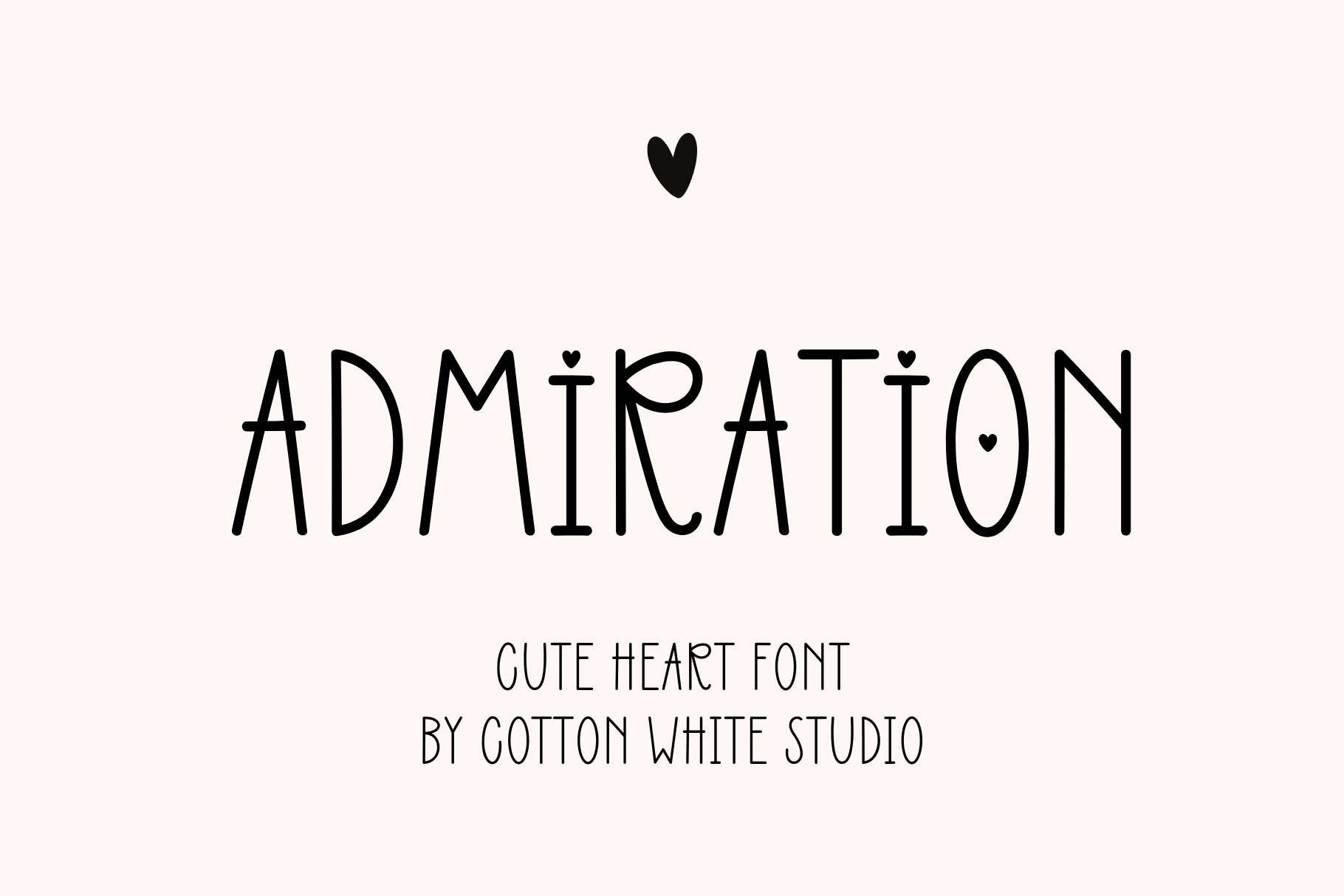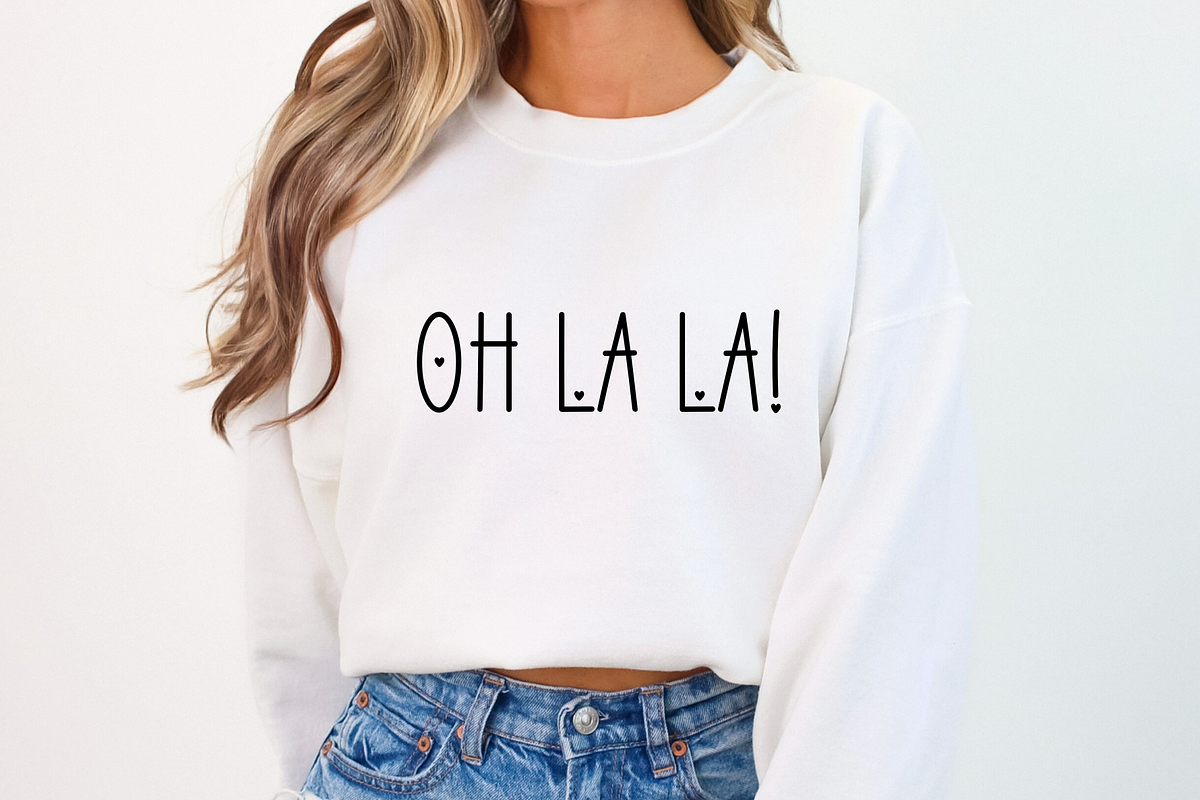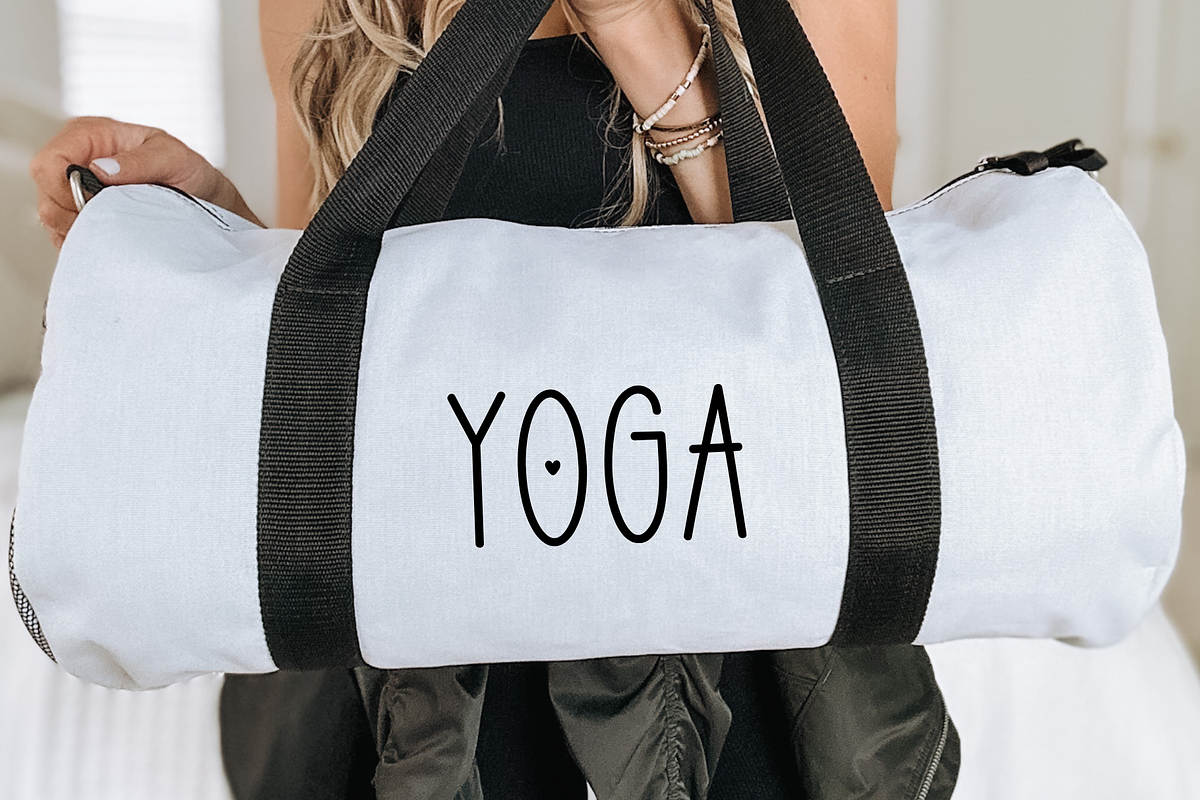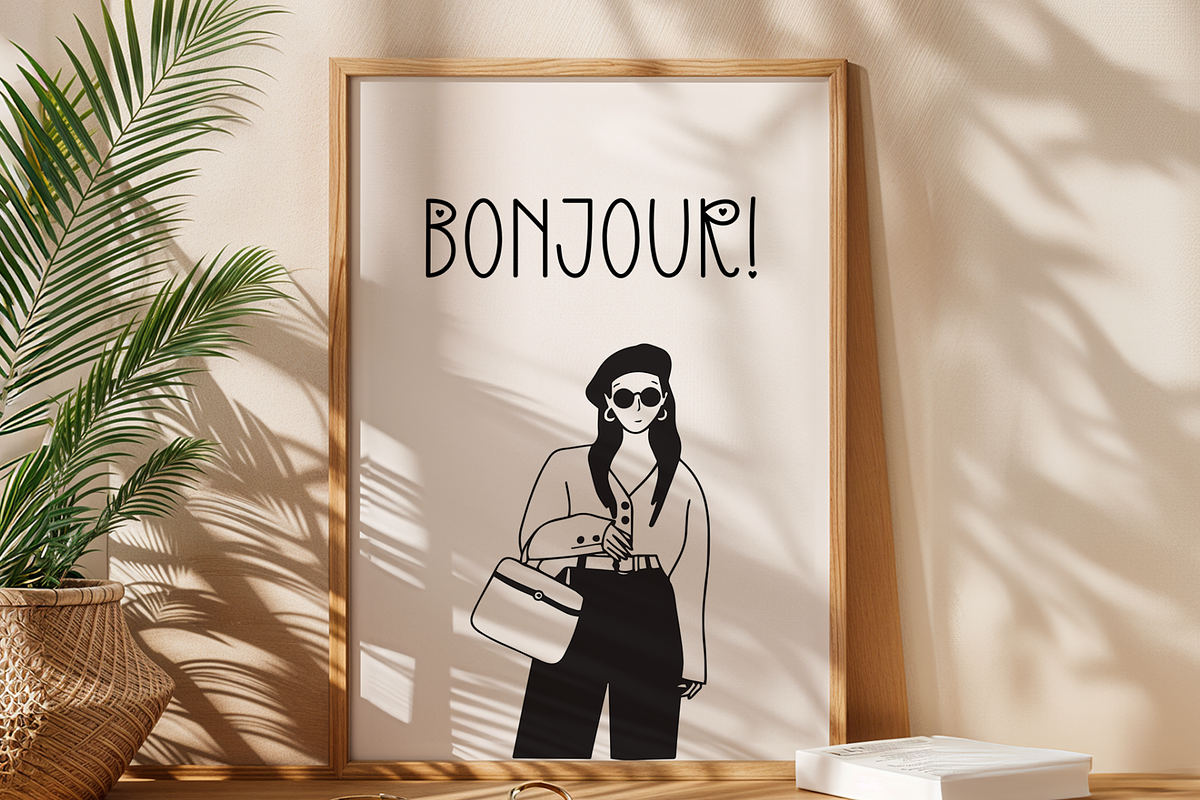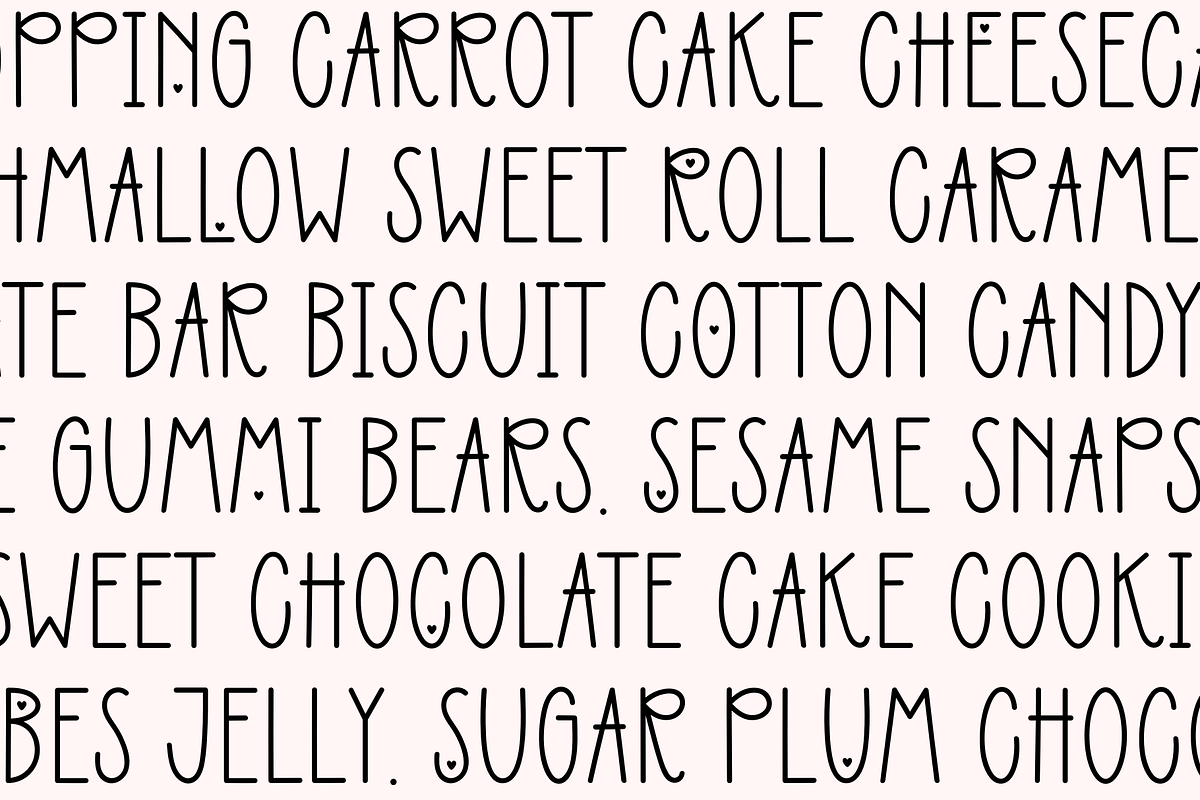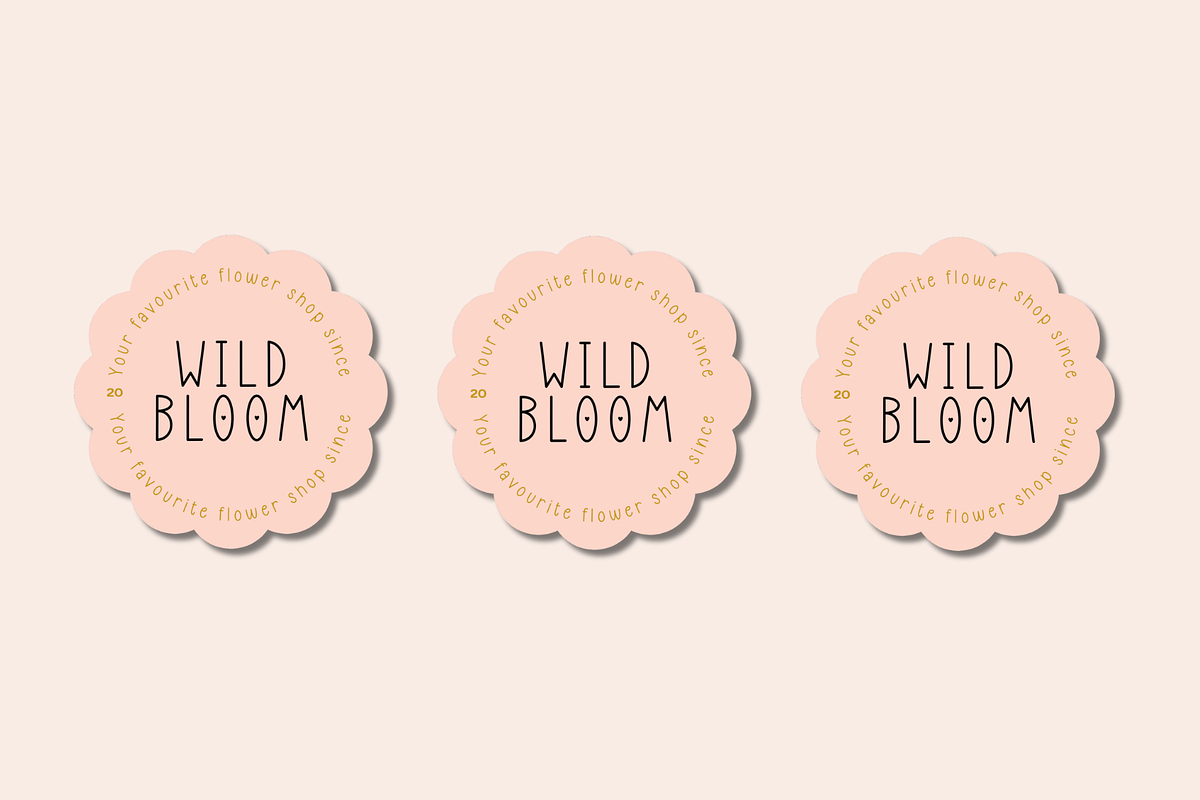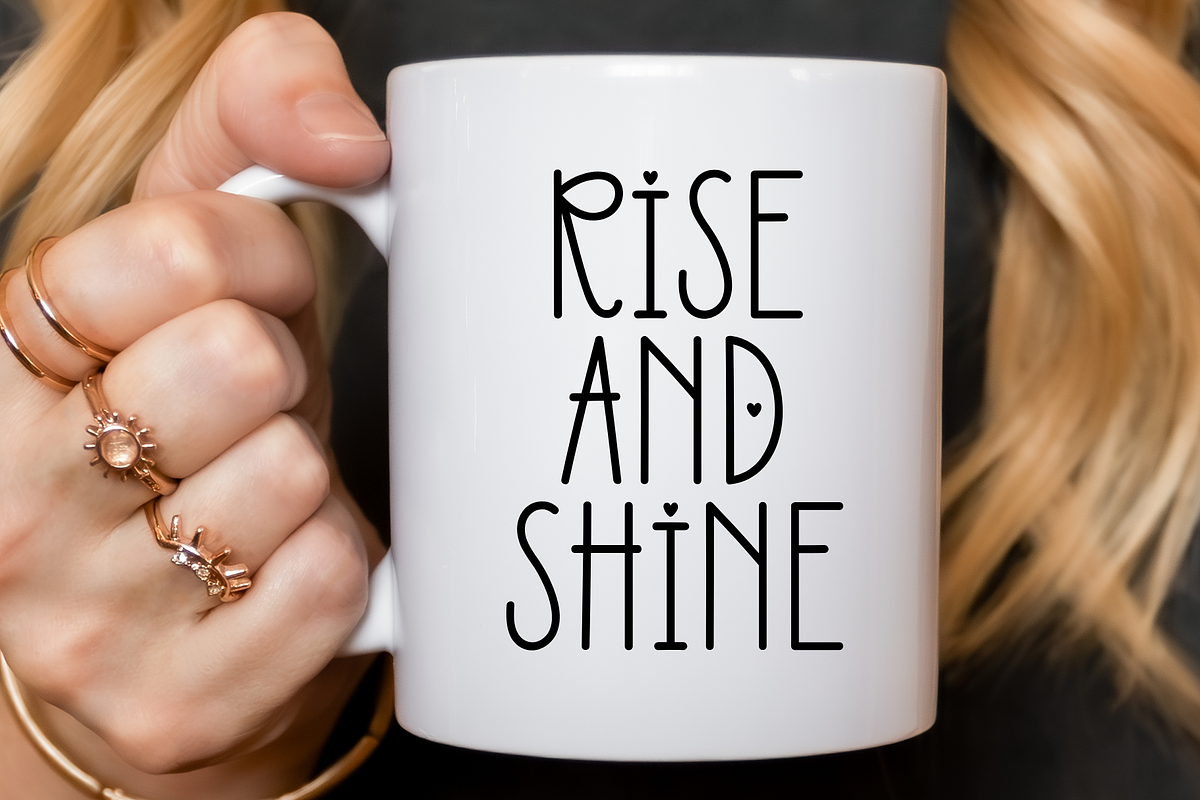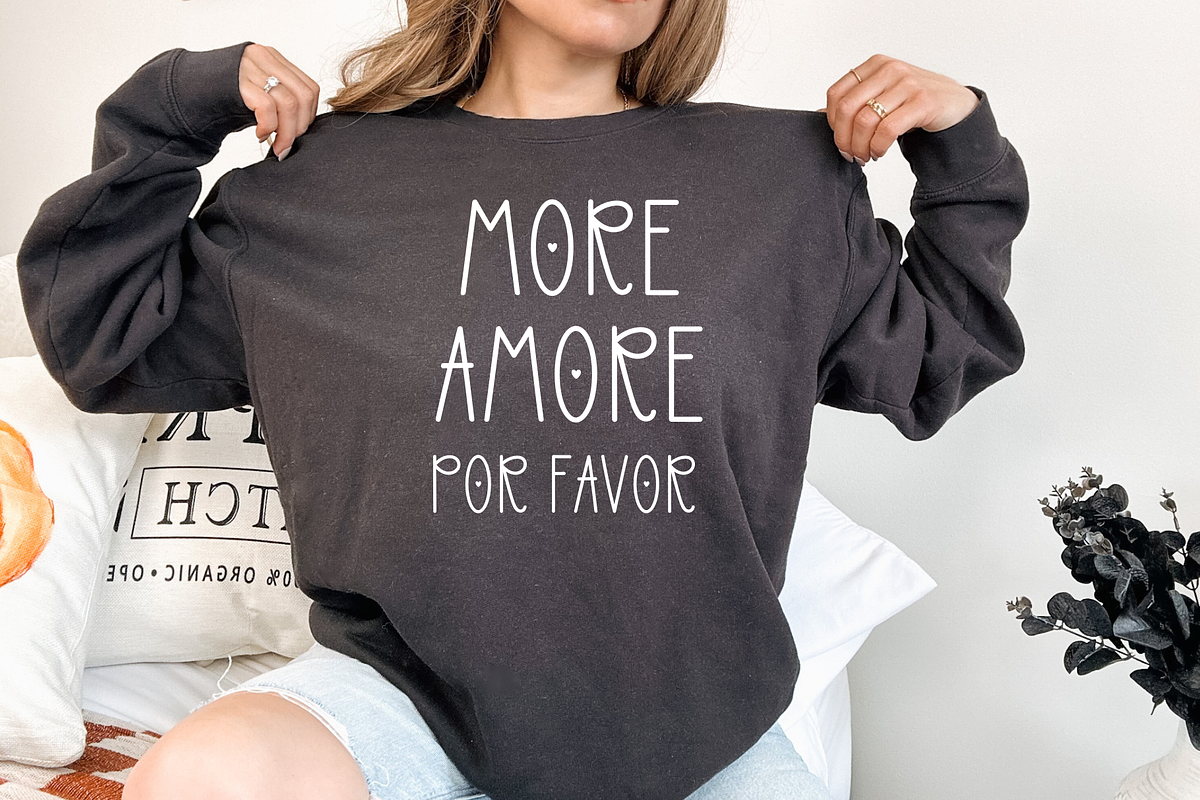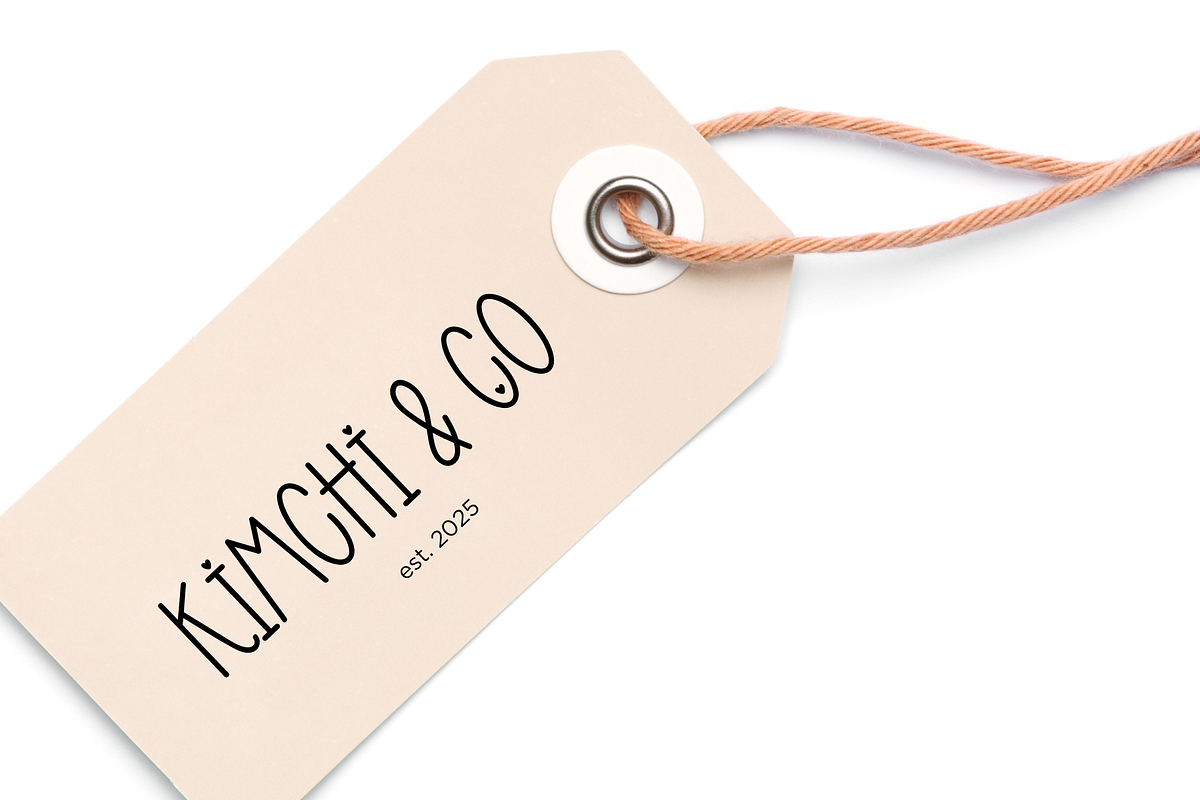
Admiration Cute Heart Font
Cute all-caps font with heart decorations. Perfect for wedding invitations, romantic cards, social media posts, logo designs, personalised gifts, and more! ❤️